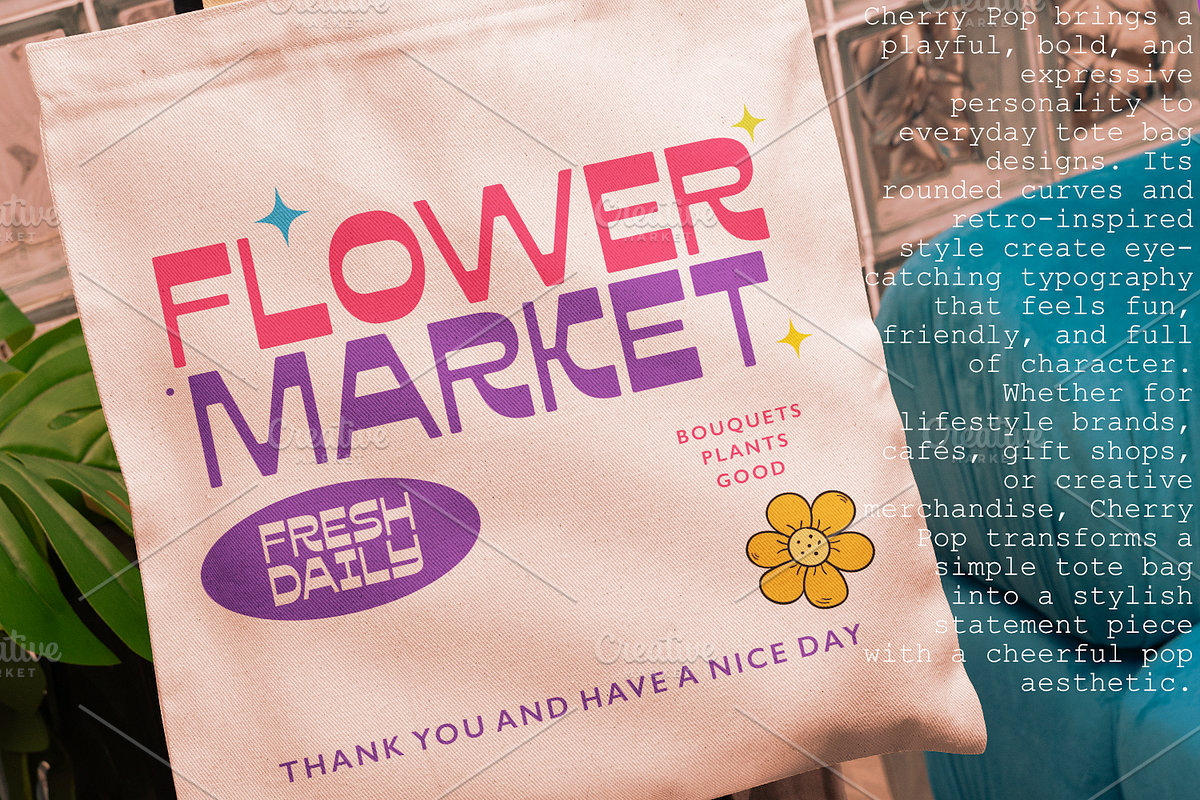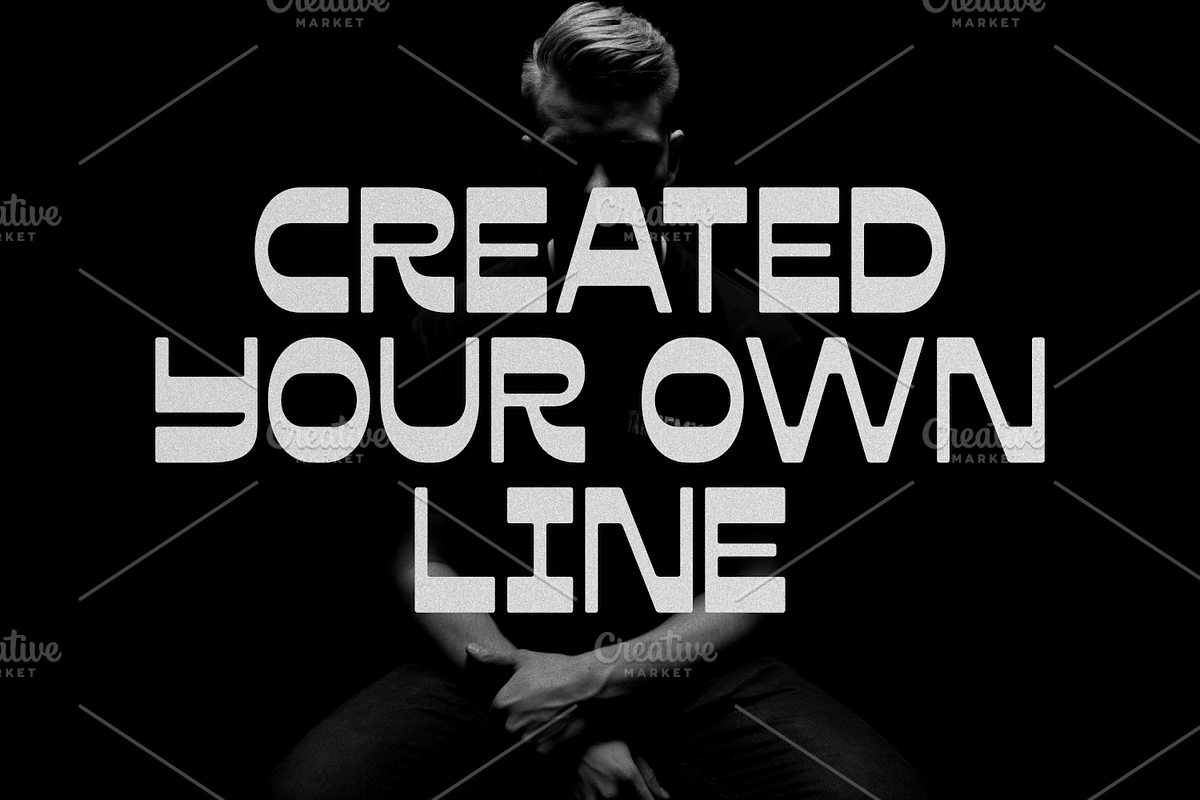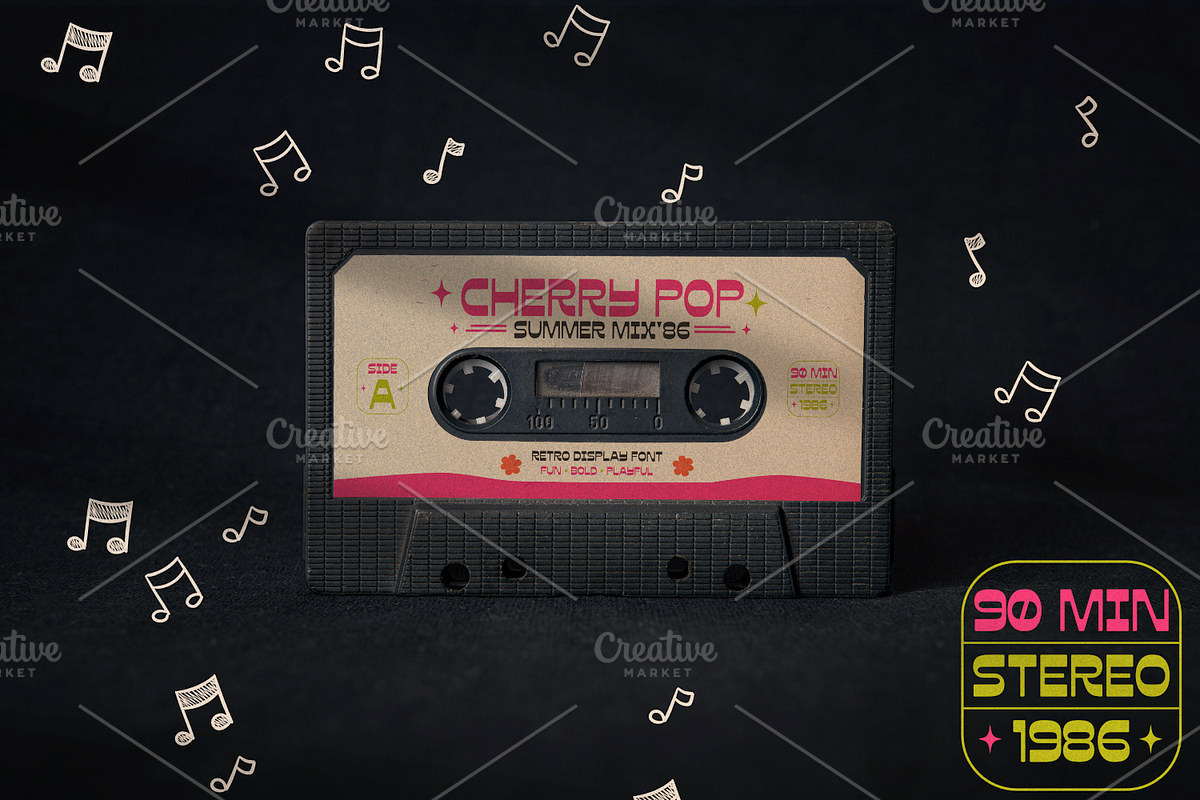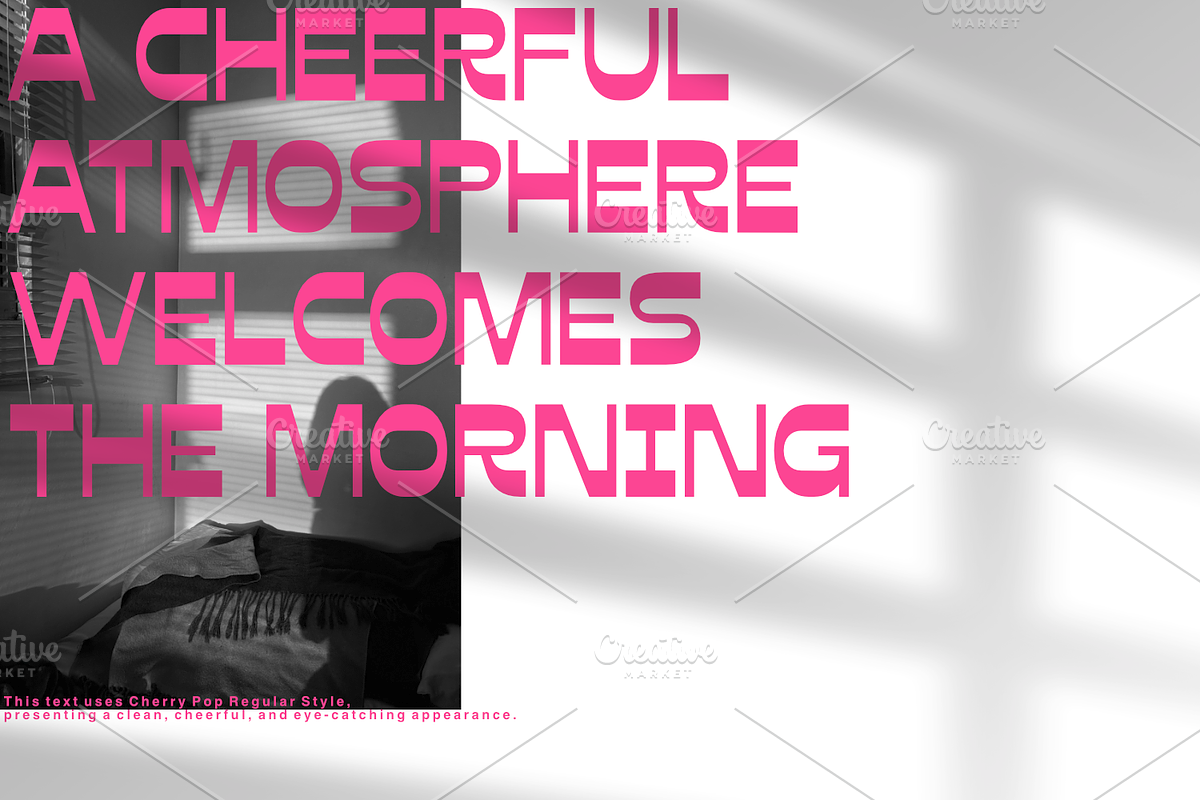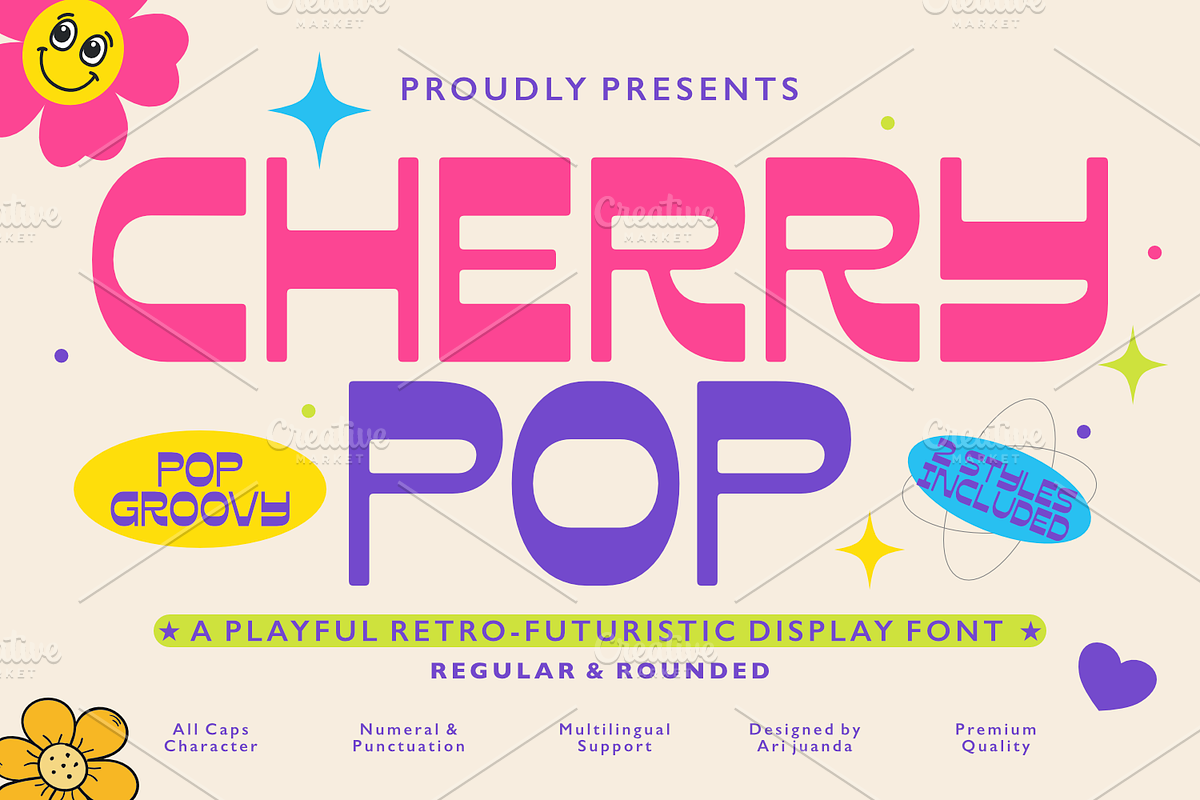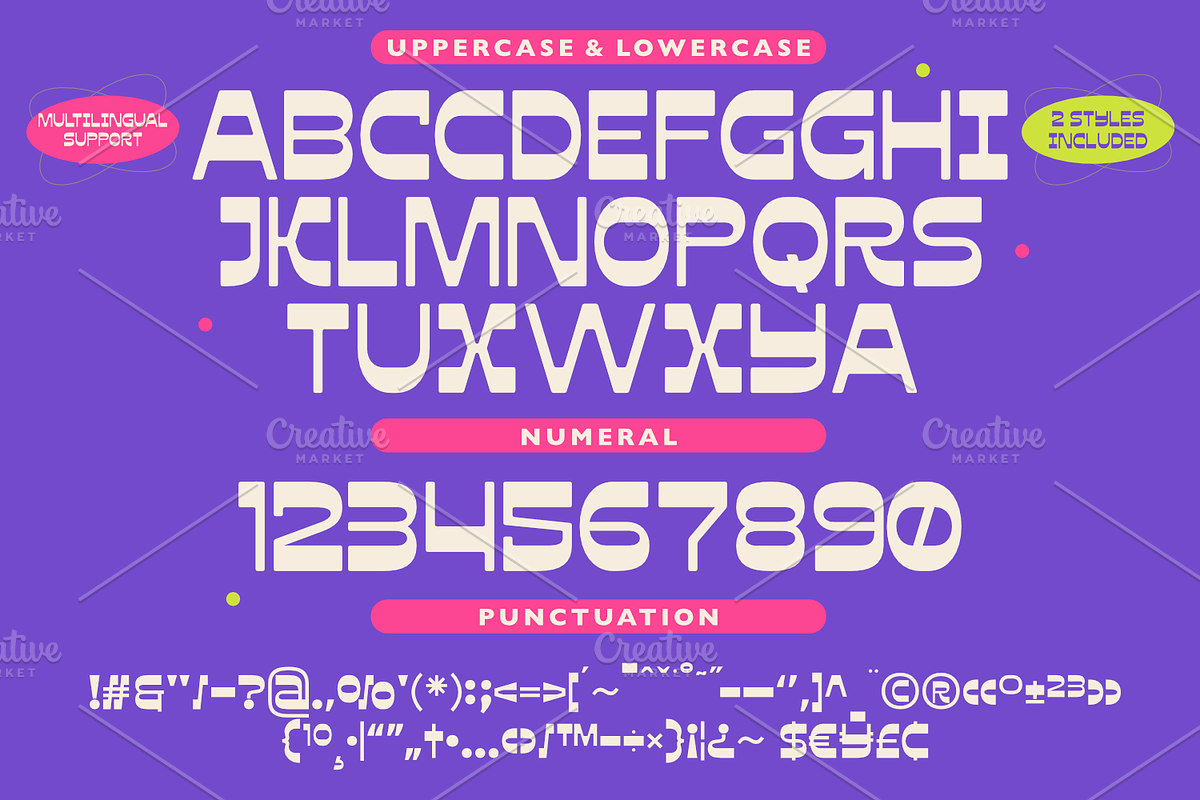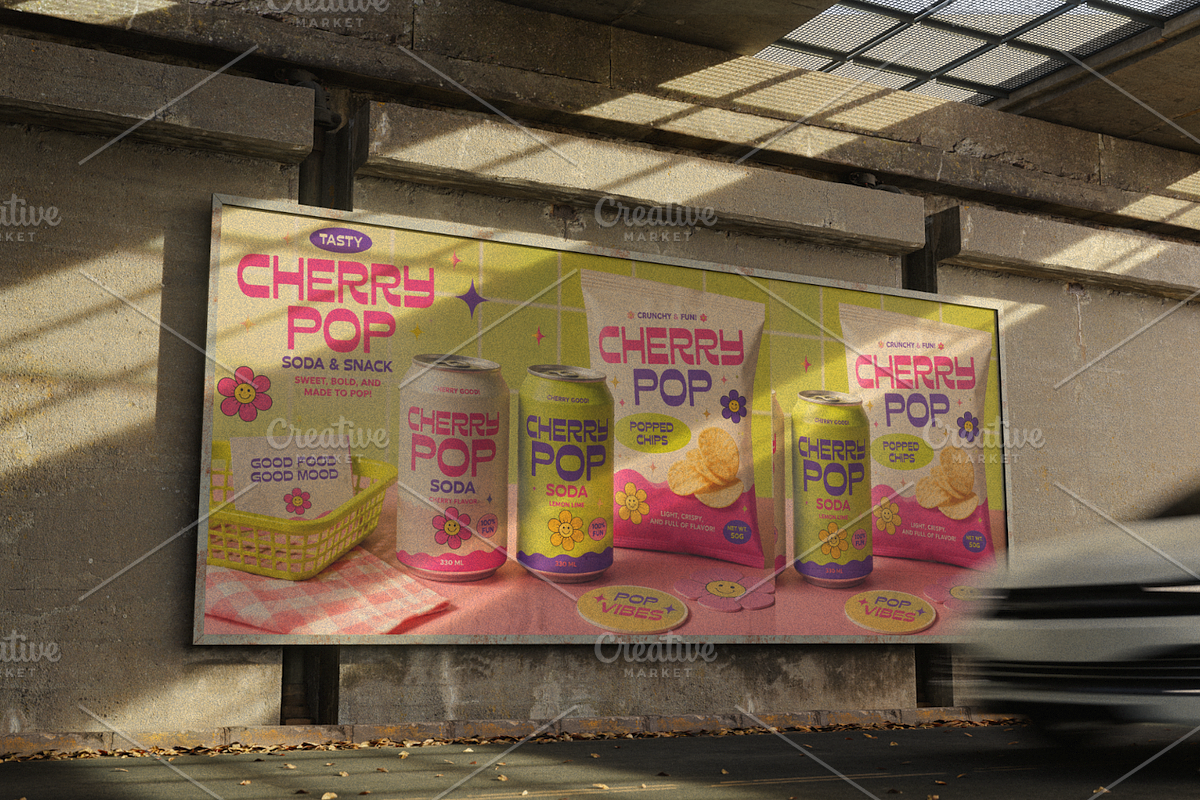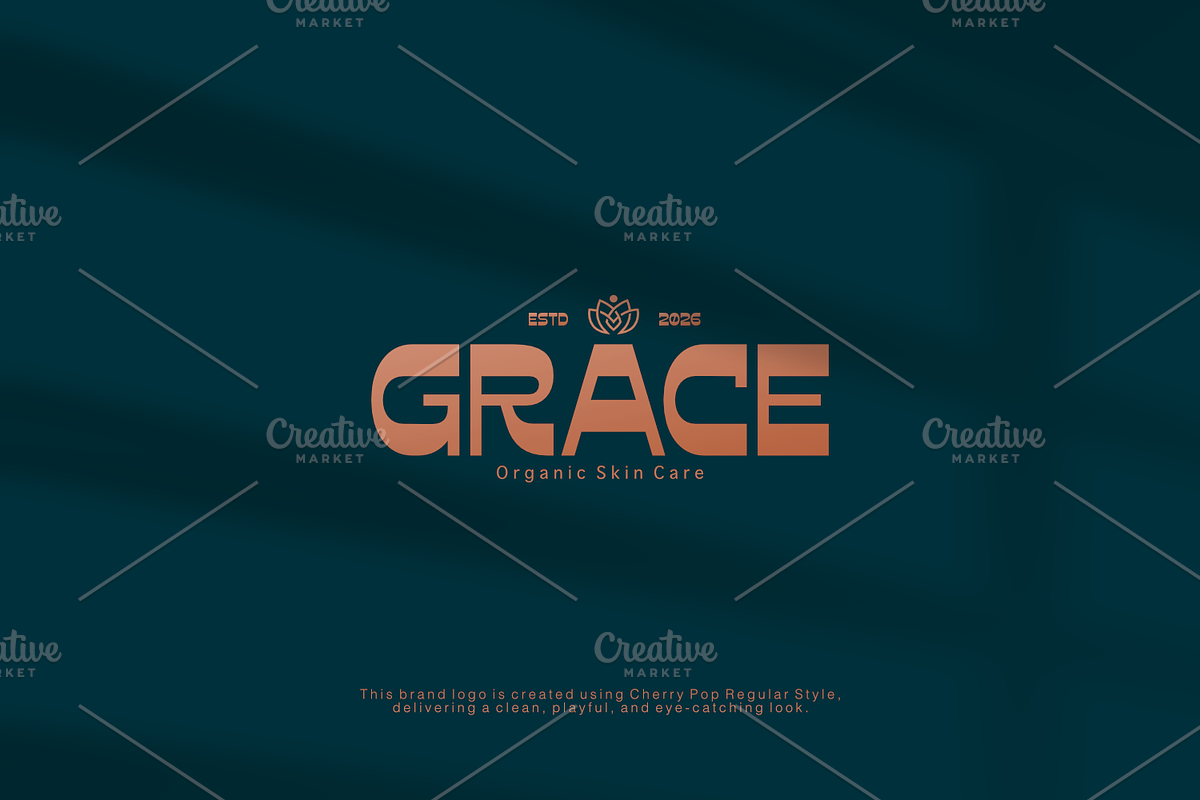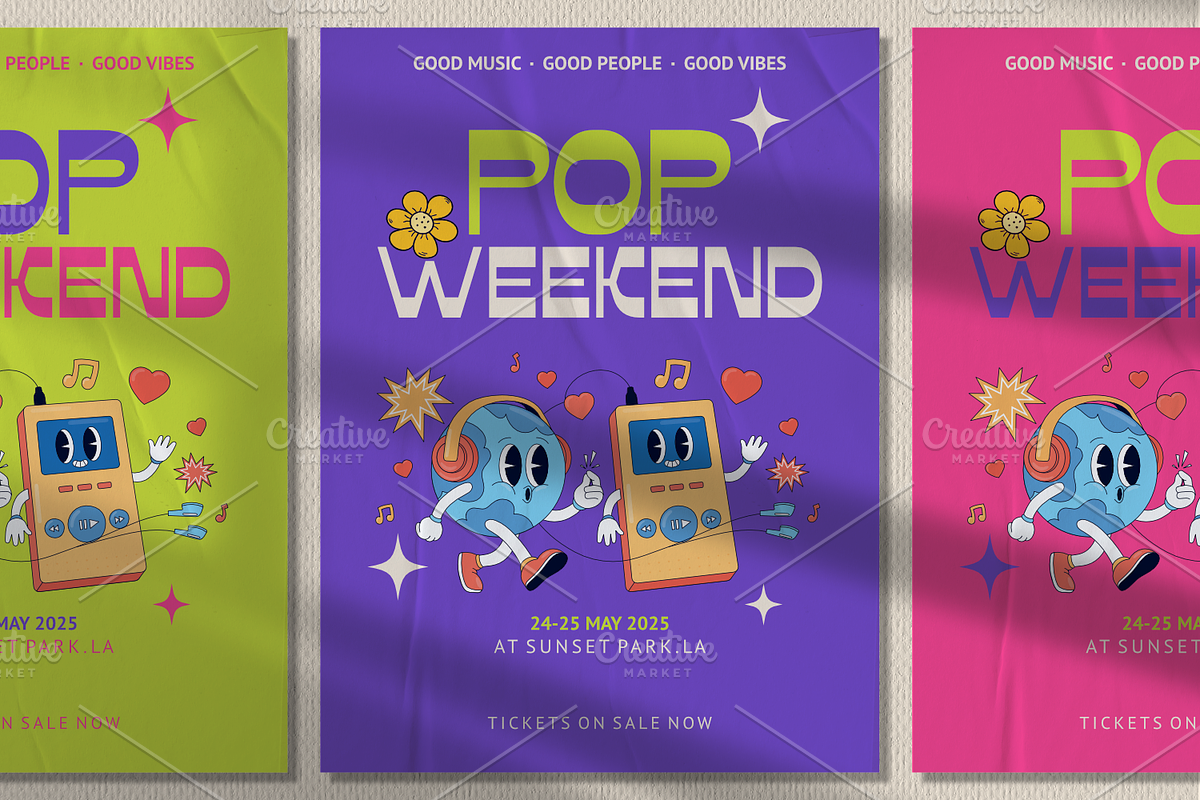
Cherry Pop - Playful Retro Display
Cherry Pop – Playful Retro Display Font
Meet Cherry Pop, a bold and playful display font inspired by the colorful energy of retro pop culture and futuristic Y2K aesthetics. Designed with smooth rounded corners and clean geometric shapes, Cherry Pop instantly brings a fun, cheerful personality to every design.
Whether you're creating vibrant branding, eye-catching posters, stylish packaging, trendy logos, or social media graphics, Cherry Pop delivers a distinctive look that's impossible to ignore. Its unique character strikes the perfect balance between nostalgic retro vibes and modern simplicity, making it suitable for both playful and professional creative projects.
To give you more flexibility, Cherry Pop comes with 2 styles—Regular and Rounded—allowing you to easily switch between a sharper geometric feel or a softer, friendlier appearance.
From music festivals and cafés to children's products, fashion brands, cosmetic packaging, stickers, merchandise, and content creation, Cherry Pop helps your typography stand out with confidence and personality.
Regular & Rounded Styles
Perfect for Logo, Branding, Packaging, Posters, Headlines, Merchandise, Social Media, and More
Brand Identity
Café & Restaurant Branding
Cosmetic & Beauty Packaging
Children's Products
Toy Packaging
Music Posters
Festival Flyers
T-Shirt Design
Tote Bags
Stickers
YouTube Thumbnails
Retro & Y2K Projects
Creative Headlines
Bring fun, color, and personality into your next project with Cherry Pop—a font made to turn every word into the center of attention.